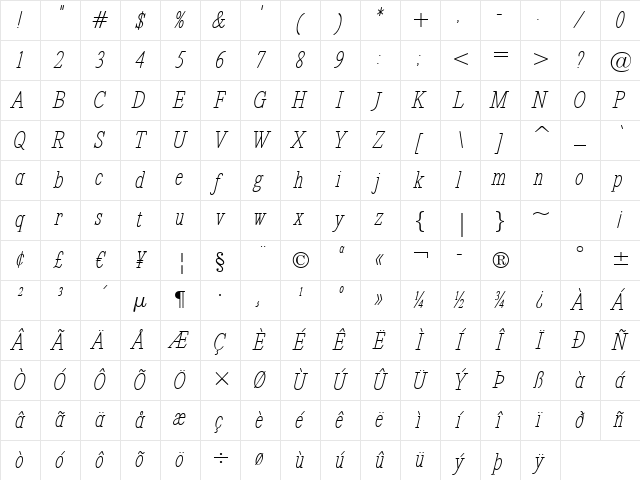
Revelation BTN Cond Oblique Free Font
Revelation BTN Cond Oblique
Revelation BTN Cond Family
Revelation BTN Cond Oblique
Design Context for Revelation BTN Cond
Revelation BTN Cond is a composed and adaptable typeface that performs quietly and consistently across a wide range of design contexts. The slanted form adds forward momentum and visual energy. Its narrow stance lets it pack a punch even in space-constrained designs.
Pro Tip: Use Revelation BTN Cond for emphasis, pull quotes, and subheadings where its slanted energy can add rhythm to the layout.